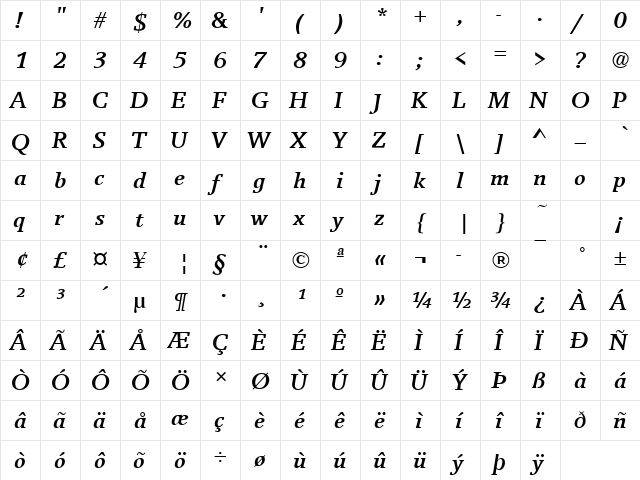
BreughelT Bold Italic Font Preview
Design Context for BreughelT Typeface
BreughelT takes a measured approach to typography — its balanced proportions and neutral character make it a reliable workhorse for both digital and print work. The slanted form adds forward momentum and visual energy. The heavy weight commands attention and anchors typographic hierarchies.
Pro Tip: Try BreughelT for annotation and caption copy alongside an upright companion — the contrast in angle creates a dynamic but ordered typographic system.